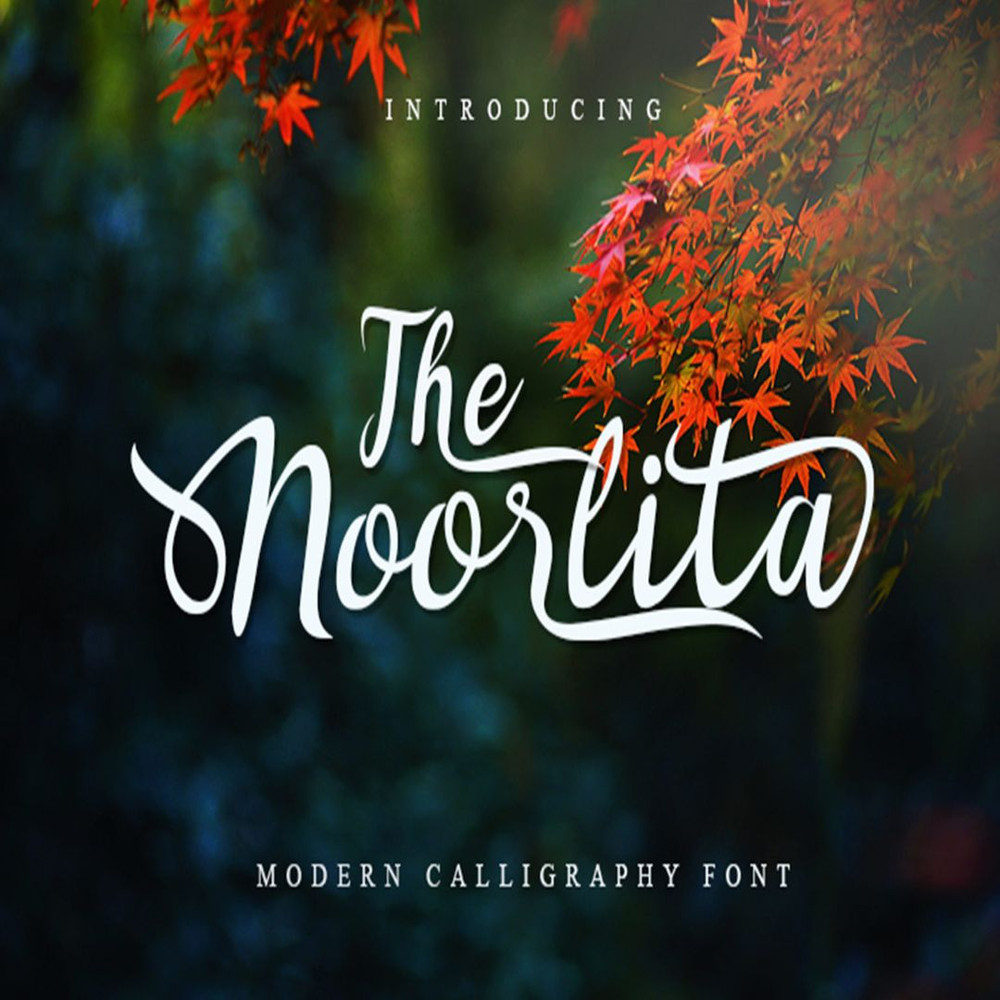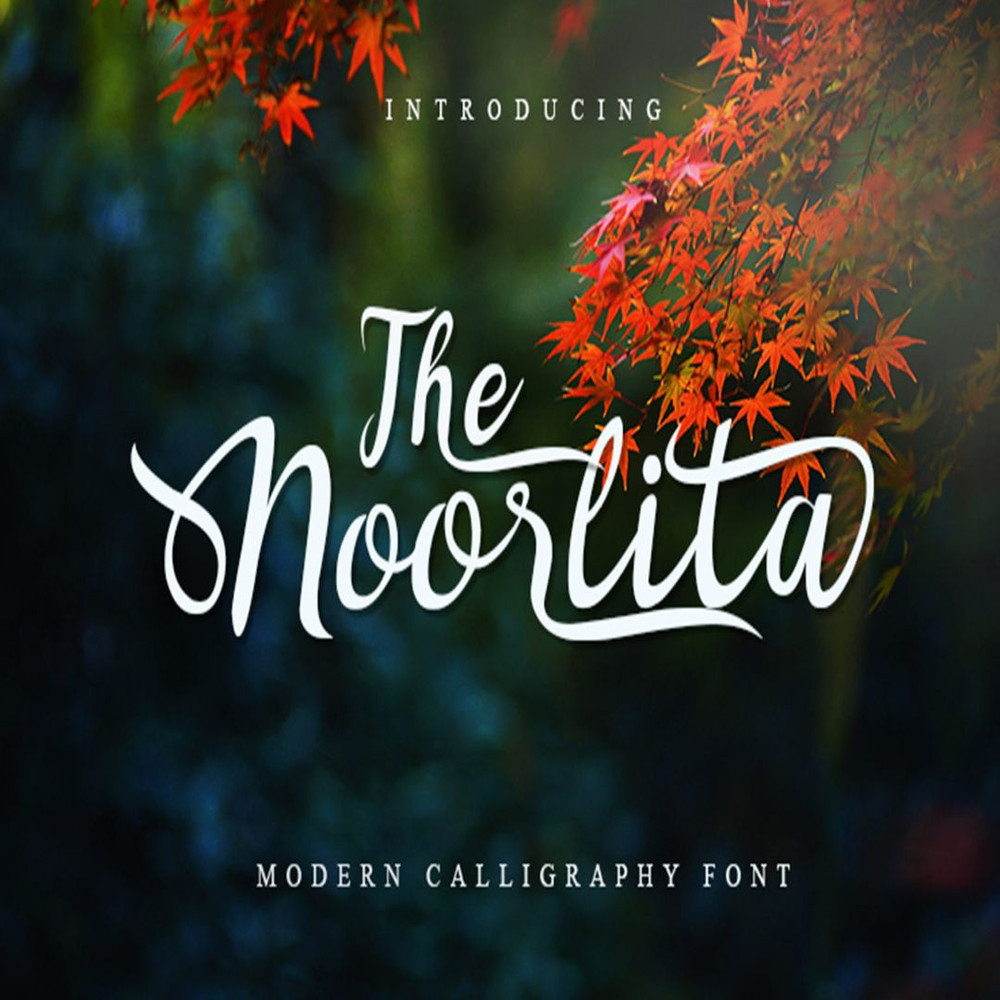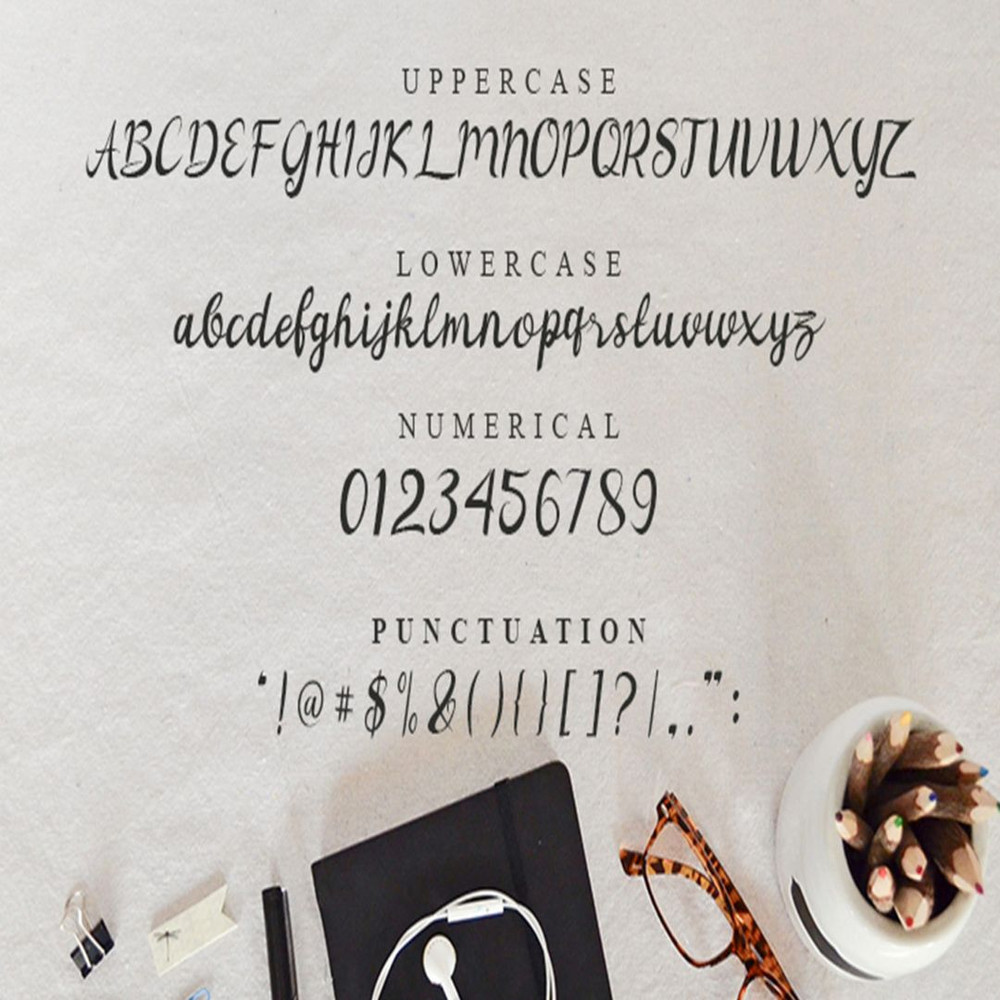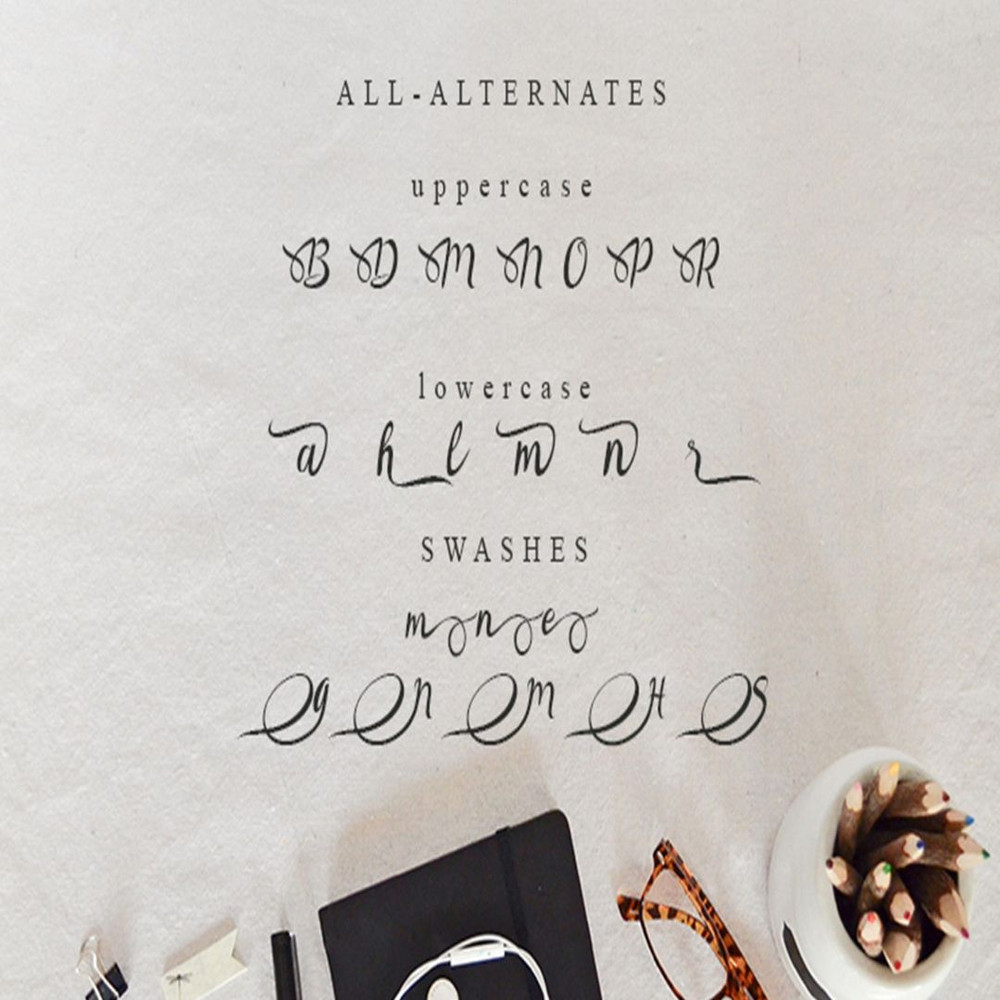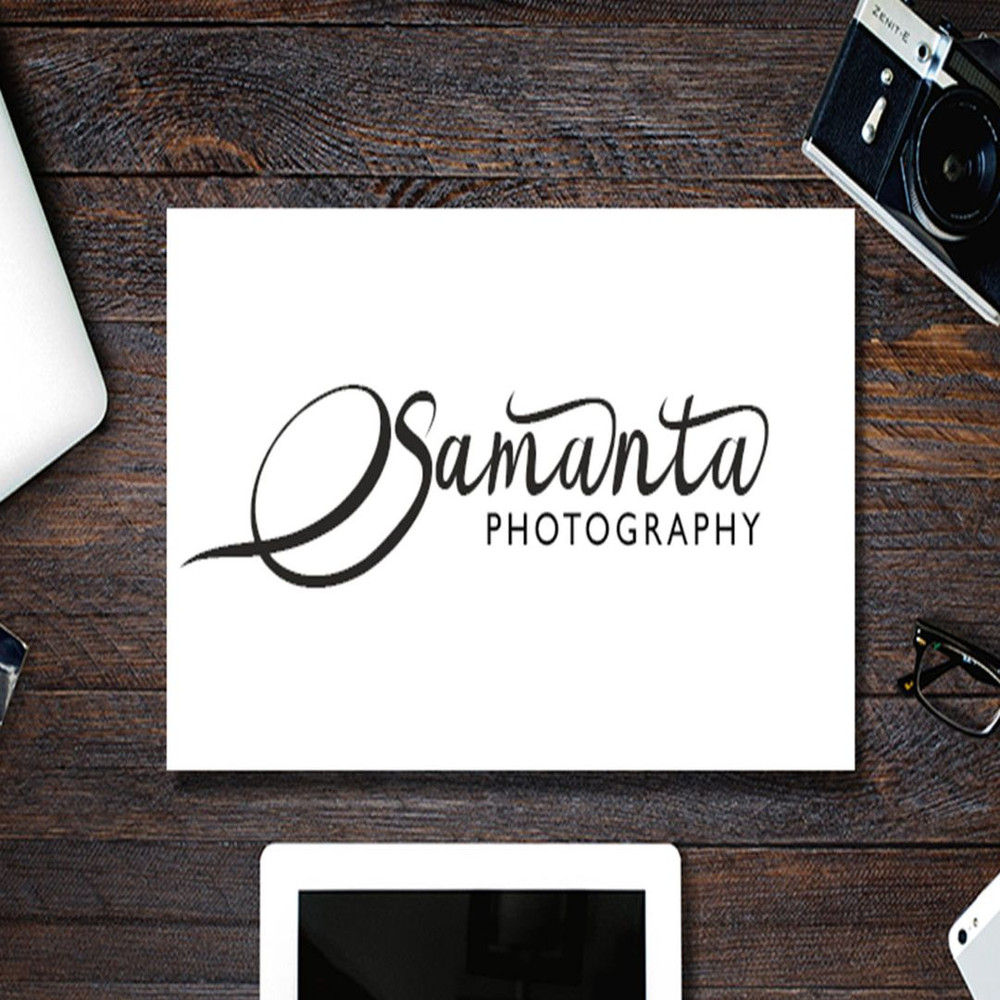
The Noorlita is a beautiful font, decorative characters and, very beautiful on invitation like
greeting cards, branding materials, business cards, quotes, posters, and more!
The Noorlita is a beautiful font, decorative characters and, very beautiful on invitation like
greeting cards, branding materials, business cards, quotes, posters, and more!
The Noorlita is a beautiful font, decorative characters and, very beautiful on invitation like
greeting cards, branding materials, business cards, quotes, posters, and more!
The Noorlita is a beautiful font, decorative characters and, very beautiful on invitation like
greeting cards, branding materials, business cards, quotes, posters, and more!